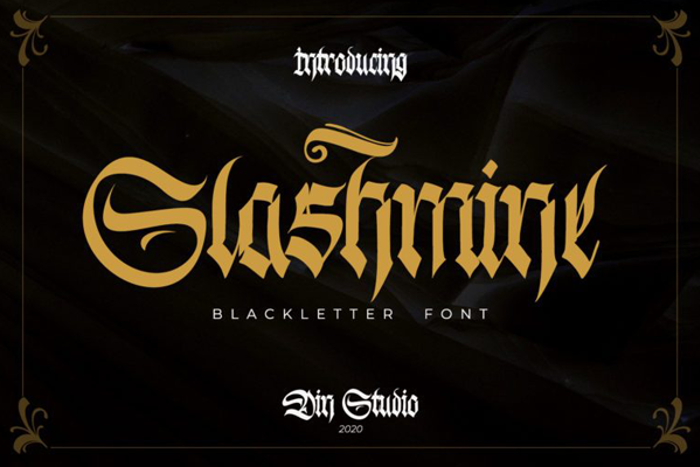
Slashmine Font
Slashmine is authentic and modern blackletter font. The font is suitable for any branding project like logo, merchandising, t-shirt printing and many more. Outstanding in a wide range of contexts.
• Alternates
• Multilingual Supports
• Numerals and Punctuations